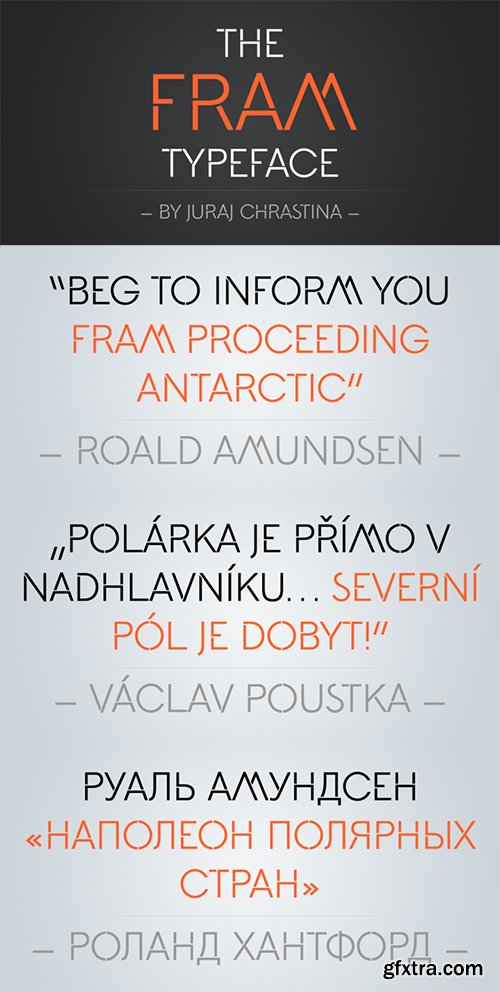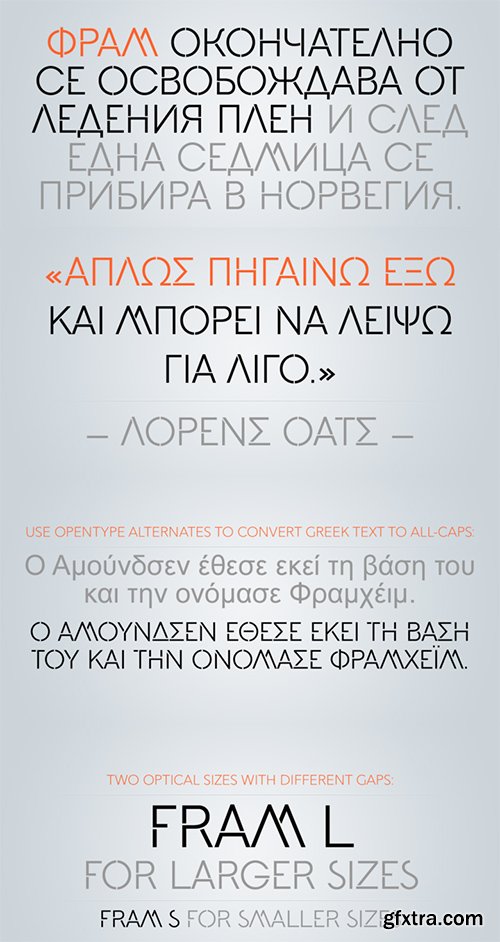
- Fram is an uppercase stencil typeface. It comes with a fine-tuned kerning, its extensive character set ensures multiple languages coverage and the design is adapted to different ranges of size through size-specific optical compensation. Fram L is intended for use at large sizes and Fram S with larger gaps guarantees good performance even when the size is reduced.